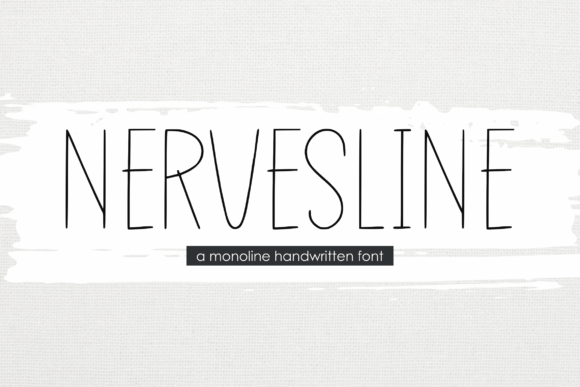
Introducing Nervesline Font - a casual handwritten font that exudes charm, creativity, and a touch of elegance. With its distinctive character, Nervesline becomes a wardrobe of letterforms for your creative projects.
Dive into the world of Nervesline and let your imagination soar. Create stunning designs that exude a personal touch, whether you're crafting digital masterpieces, designing eye-catching presentations, or adding a unique flair to greeting cards. This font is a versatile chameleon, adapting effortlessly to any project.
Unlock your inner artist and explore the endless possibilities that Nervesline offers. Its amiable nature makes it a joy to use, while its adaptability allows it to shine in any context. From casual designs to sophisticated creations, Nervesline is your perfect font companion.
Step into the spotlight and captivate your audience with designs that come alive. Nervesline's unique style adds an enchanting touch to your projects, leaving an unforgettable impression. It's a game-changer for designers, crafters, and anyone seeking to make a visual impact.